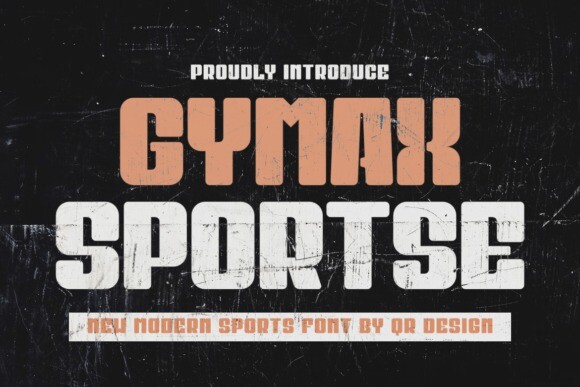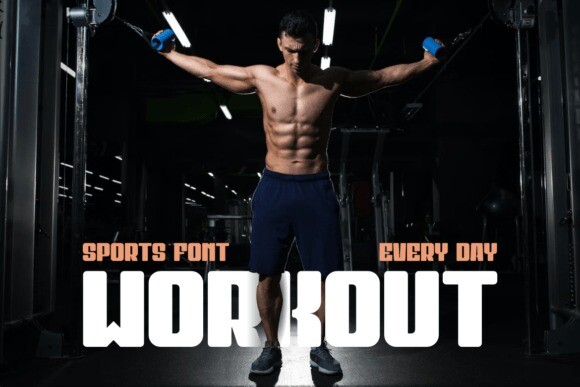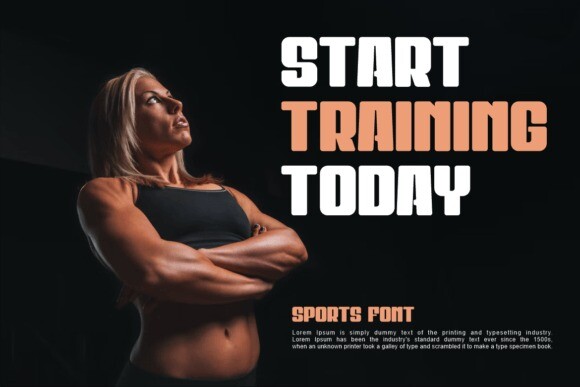
Gymax Sportse Font
Gymax Sportse is a cool and bold display font. Masterfully designed to become a true favorite, this font has the potential to bring each of your creative ideas to the highest level!